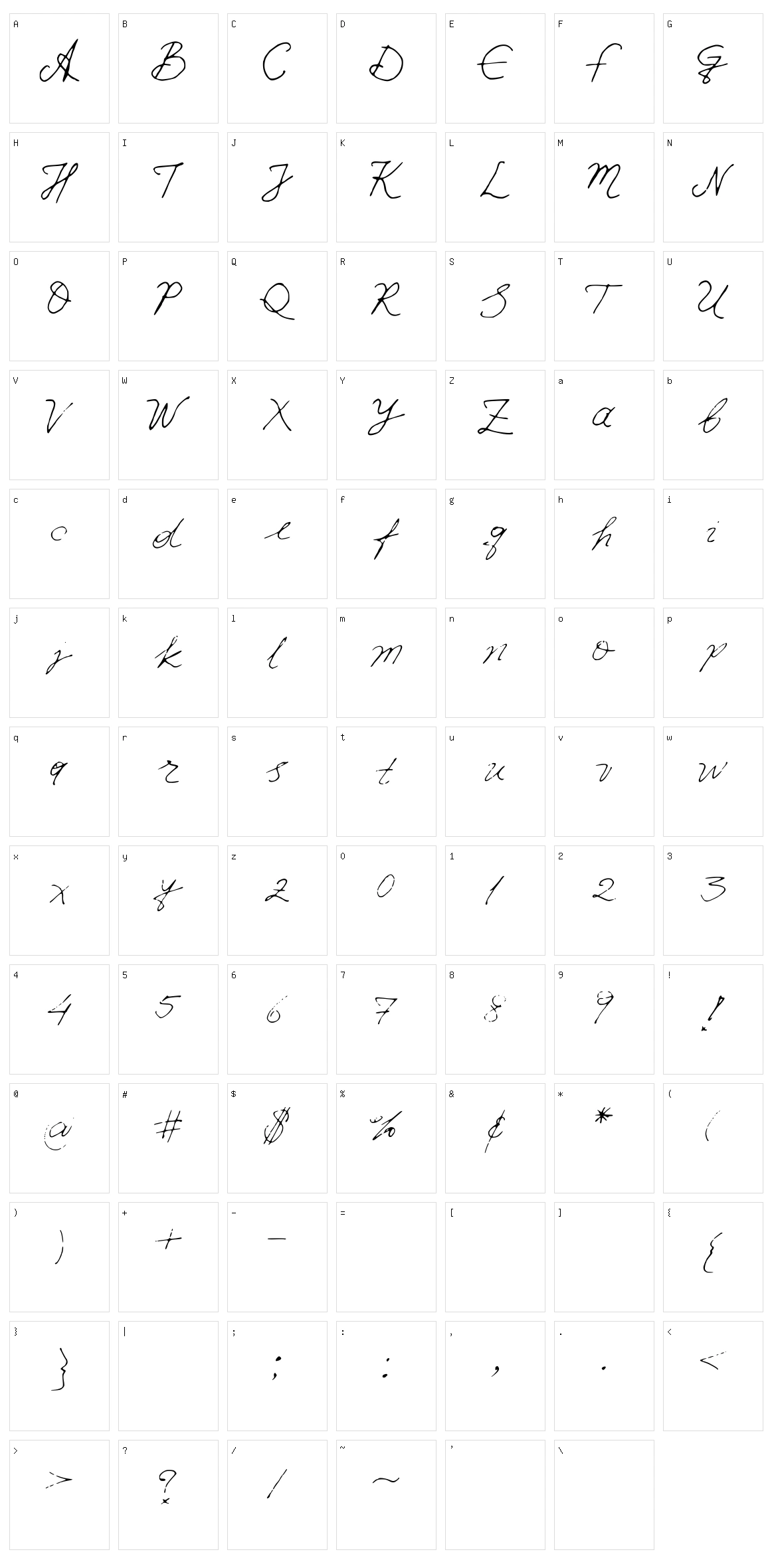
The free font Iwfx is carefully designed by iwfx, showcasing a thoughtful balance of creativity and usability and falls under the Script font style. When you download the ZIP file, it contains only 42.76 KB of font files, making it lightweight and quick to download. Please review the license details below to understand permitted usage and distribution rights. If license information is not available, we recommend using this font for personal projects only or contacting the author directly for commercial usage permissions.